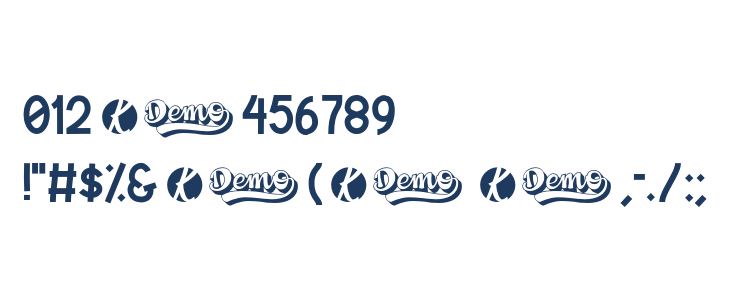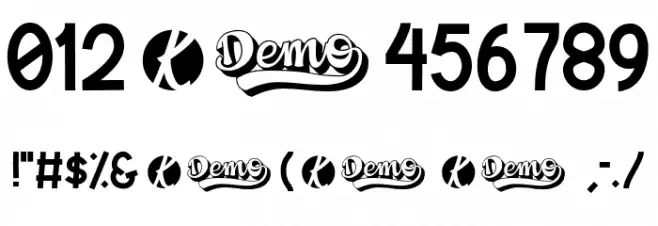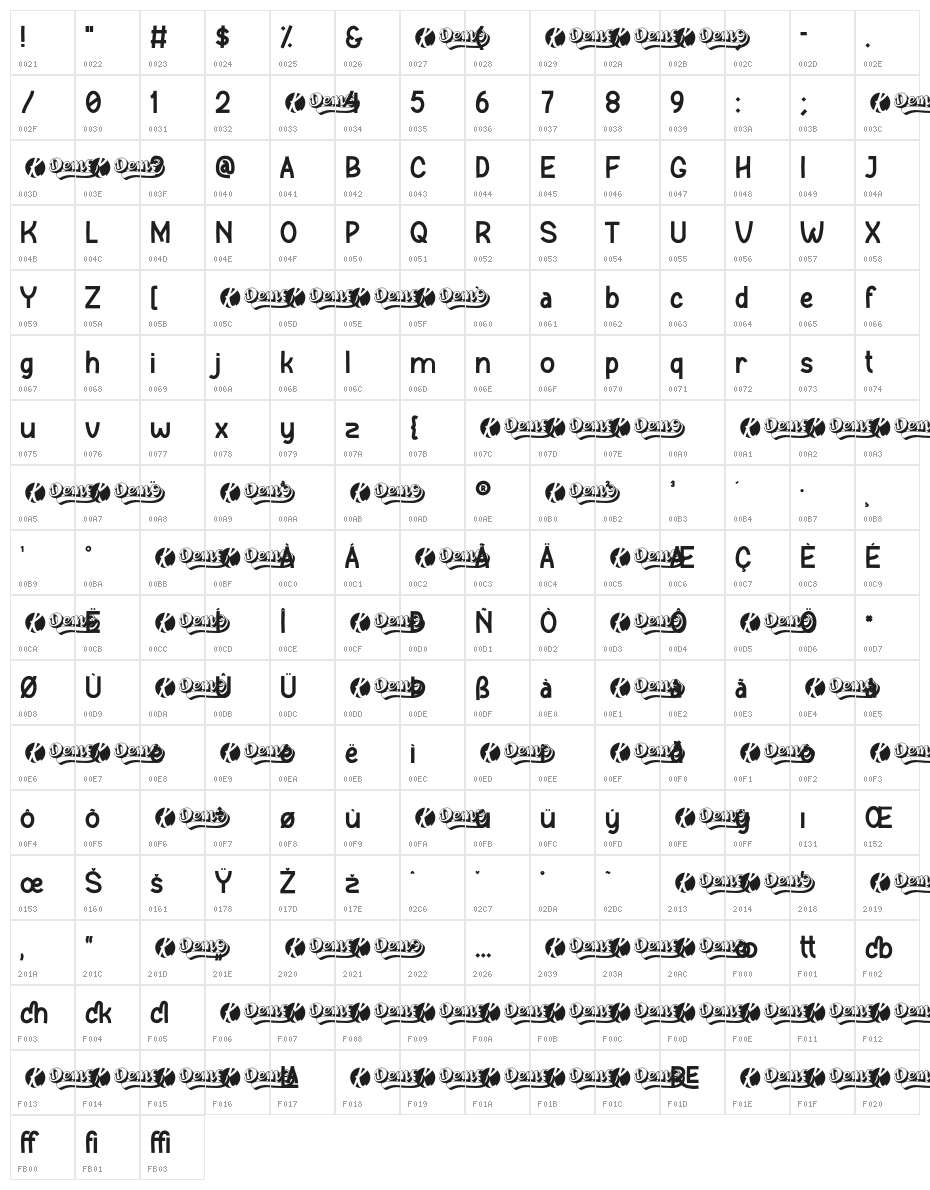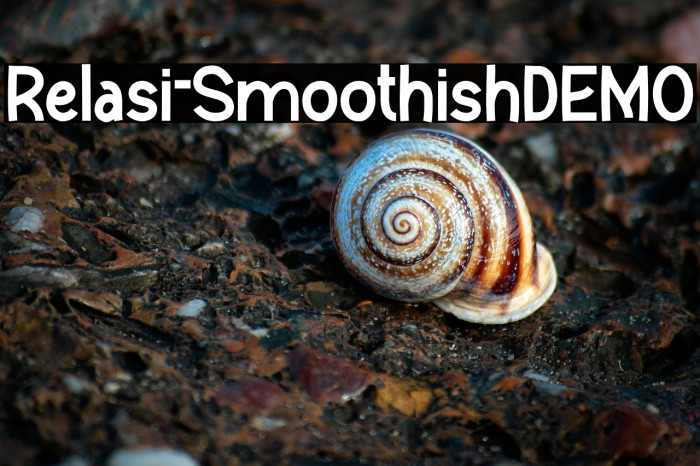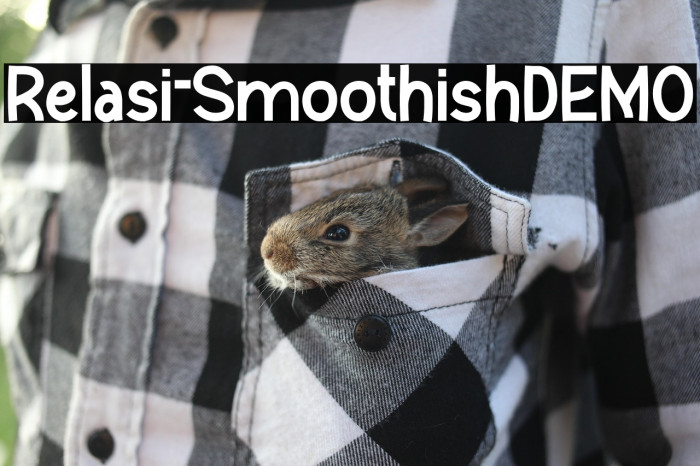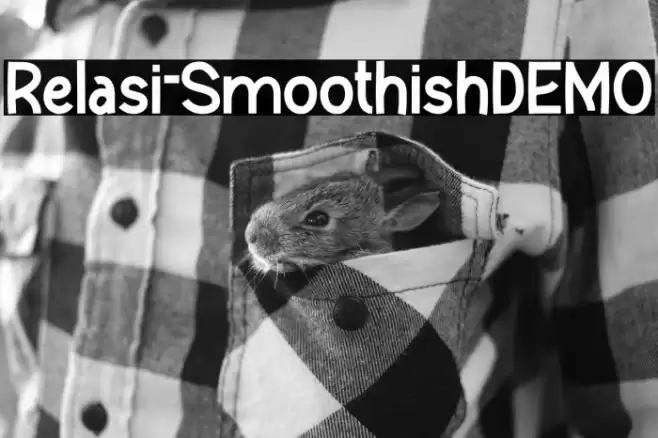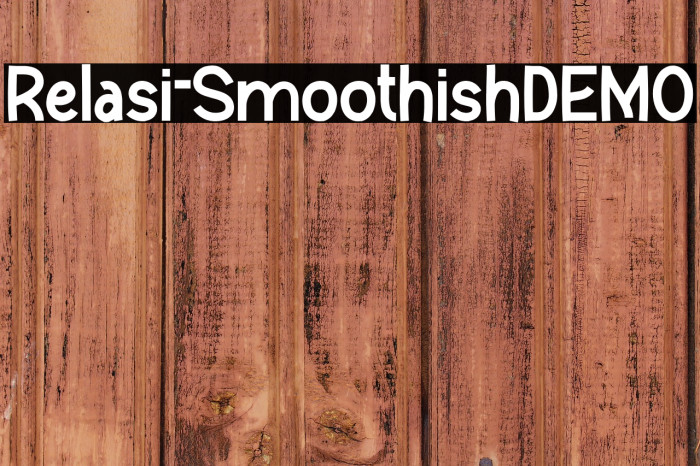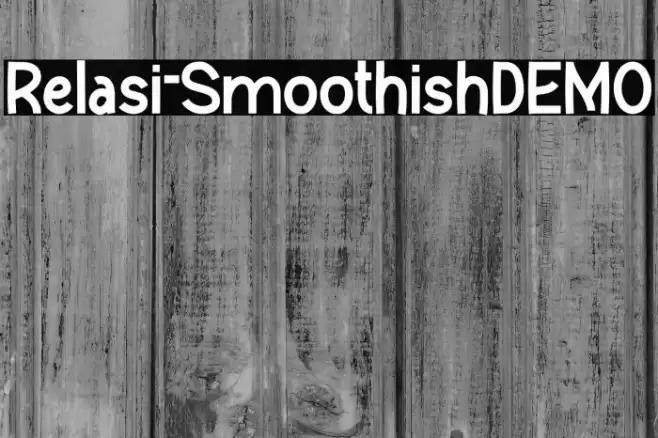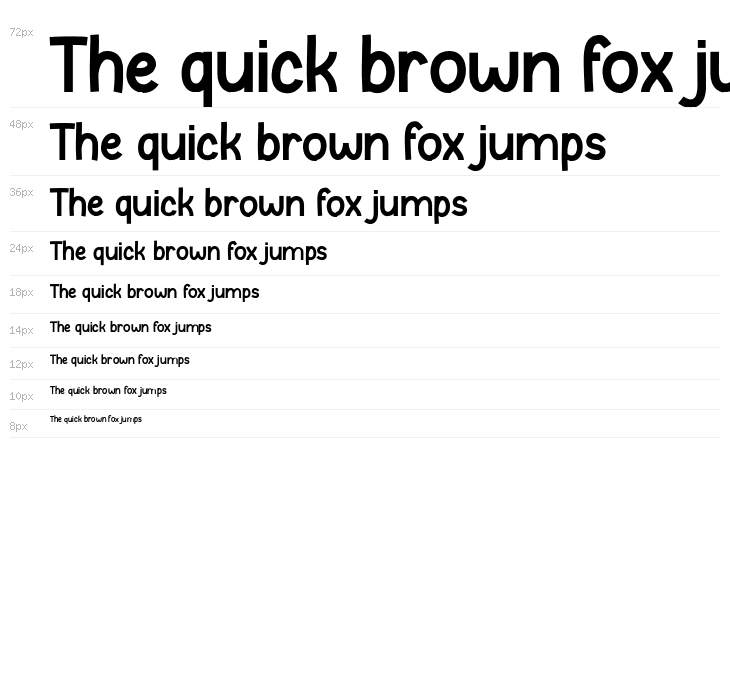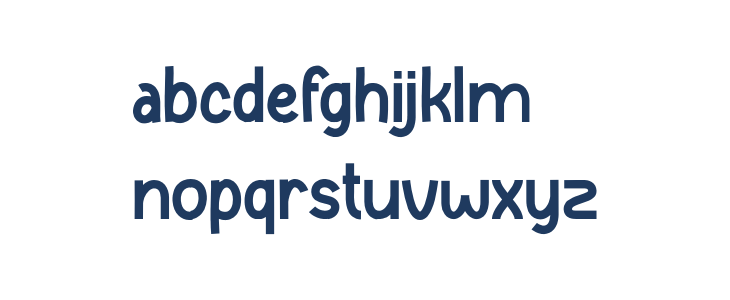
Relasi-SmoothishDEMO Font
Relasi-SmoothishDEMO Description
This font features a playful and bold style with a smooth, rounded appearance. The uppercase letters have a slightly whimsical touch, with varying stroke widths that add a dynamic feel. The lowercase letters maintain a consistent flow, complementing the uppercase with their rounded edges and smooth curves. Numbers are bold and clear, ensuring readability. Special characters are creatively designed, adding a unique flair to the overall style. This font is ideal for projects that require a fun and engaging look, such as children's books, playful branding, or eye-catching headlines.
| Overall Style | Playful, Modern |
| Proposed Projects | Ideal for children's books, playful branding, eye-catching headlines, and creative posters. |